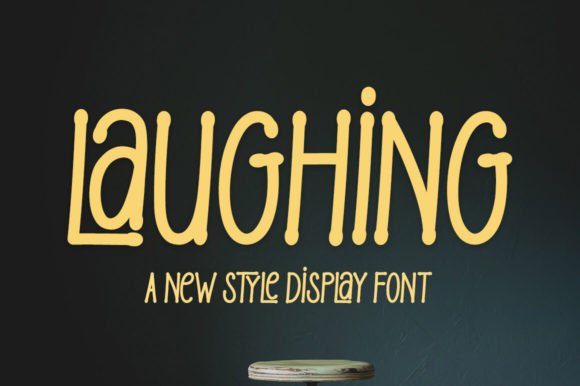
Introducing Laughing Font, a delightful and charming display font that is bound to leave you smiling! Created by Greentype, this font is the perfect choice for adding a touch of playfulness and character to your designs. Whether you're working on cartoon-related projects, children's games, or any creation that needs a dose of whimsy, Laughing Font is the ultimate go-to.
With its unique and quirky style, Laughing Font brings life and personality to every letter. Each character is carefully crafted to exude a sense of joy and cheerfulness, making it ideal for capturing the attention of your audience. From its whimsical curves to its playful serifs, this font is a true testament to the artistry of typography.
When it comes to versatility, Laughing Font shines bright. It effortlessly adapts to various design themes and purposes, making it a fantastic choice for typography logos. With its captivating and eye-catching appeal, this font instantly grabs attention and leaves a lasting impression. Whether you're designing a logo for a children's brand, a creative agency, or any business that wants to convey a sense of fun, Laughing Font will elevate your logo to new heights.
But Laughing Font doesn't stop there. Its true magic lies in its ability to evoke emotions and stir up nostalgia. With every stroke of this font, it brings back memories of carefree childhood days, laughter-filled adventures, and joyful moments. It tugs at the heartstrings of your audience and creates a connection that goes beyond words.
Featuring a wide range of glyphs and ligatures, Laughing Font provides endless possibilities for customizing your designs. Whether you want to create a headline that demands attention or craft a whimsical invitation, this font offers the flexibility to bring your vision to life. Its seamless integration with design software ensures a smooth and hassle-free experience, allowing you to focus on unleashing your creativity.
In conclusion, Laughing Font is not just a font; it's a gateway to a world of enchantment and delight. Its captivating charm, versatility, and emotional appeal make it a must-have for designers, creators, and anyone looking to add a touch of magic to their projects. So, why wait? Download Laughing Font today and let your imagination run wild!